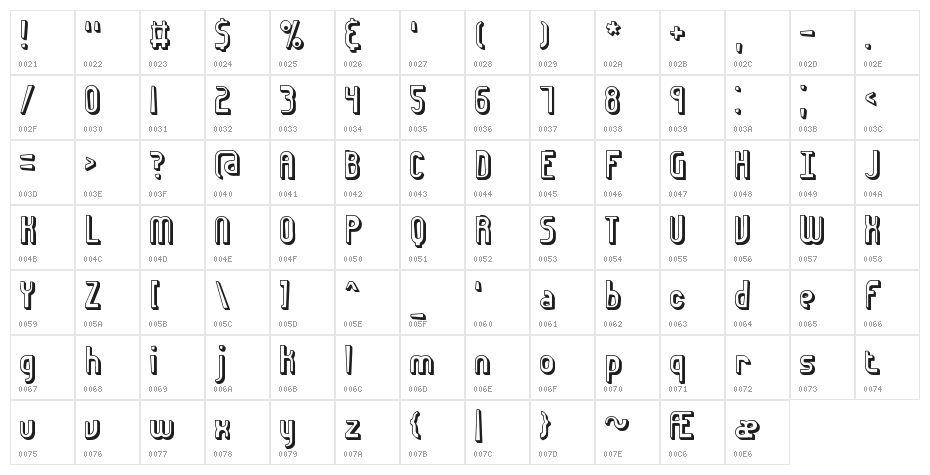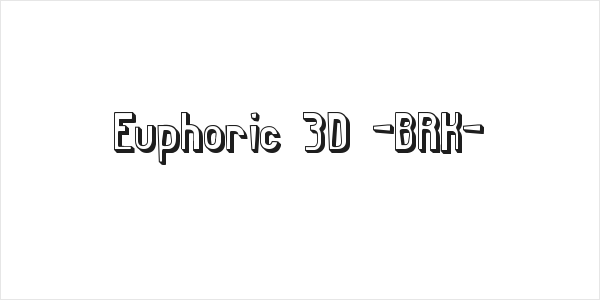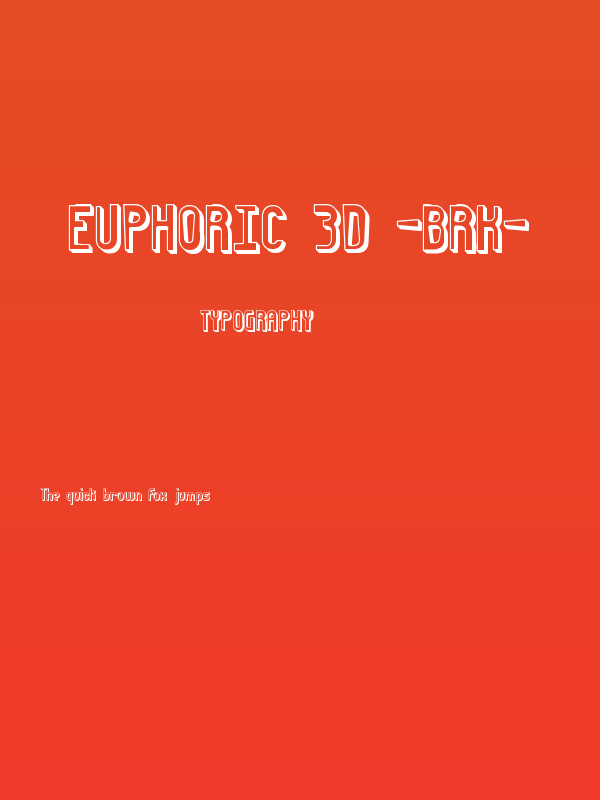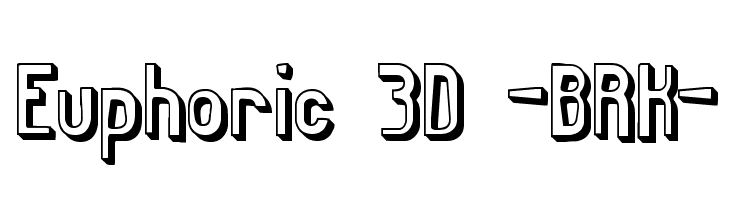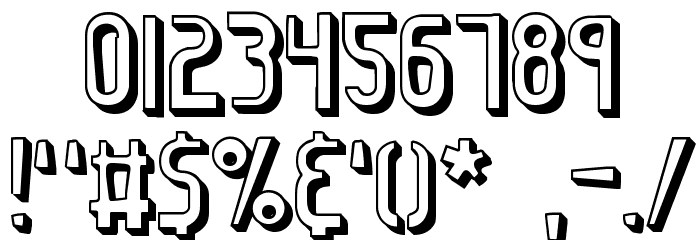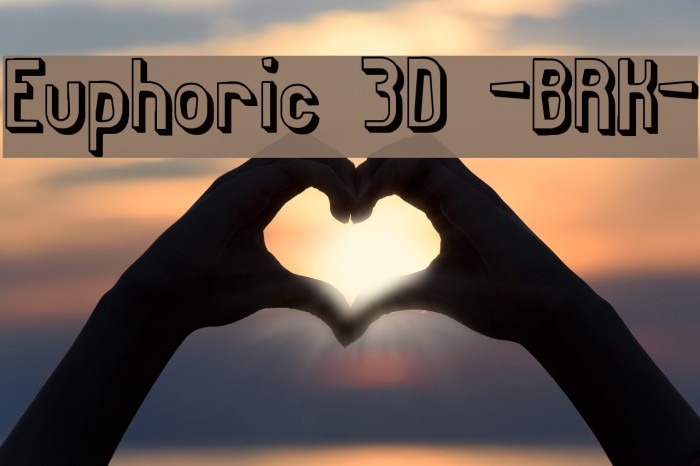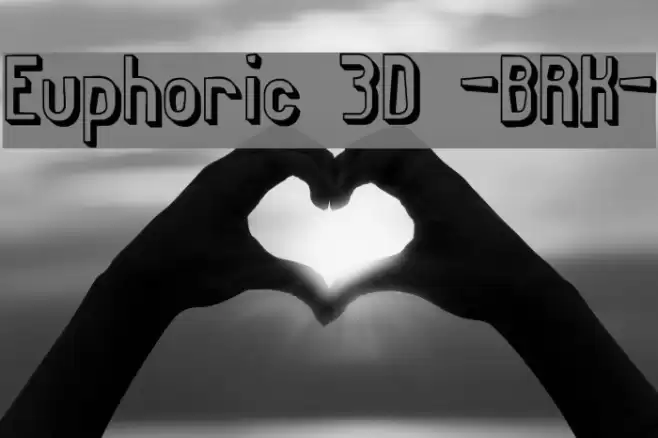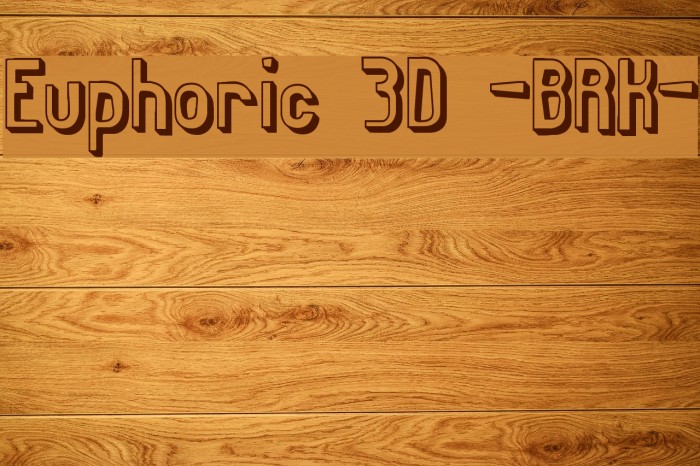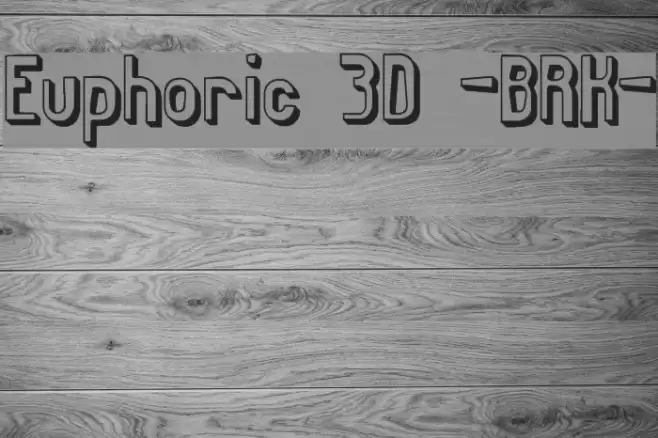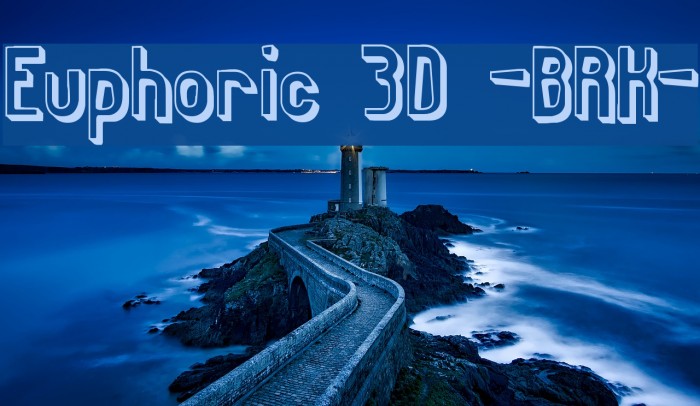
Euphoric 3D -BRK- Font
Euphoric 3D -BRK- Description
This font features a bold, three-dimensional effect that gives each character a striking, shadowed appearance. The uppercase and lowercase letters maintain a consistent geometric style, with clean lines and sharp angles. The numbers and special characters are designed to match the boldness and dimensionality of the alphabet, ensuring a cohesive look across all elements. The font's unique 3D effect makes it stand out, adding depth and visual interest to any text. Its playful yet structured design is ideal for projects that require a modern and eye-catching typeface.
| Proposed Projects | Ideal for posters, logos, headlines, and any design needing a bold, modern touch. |